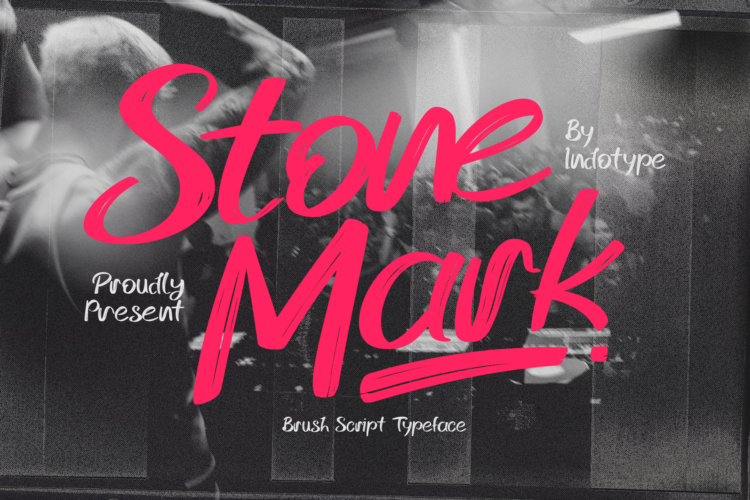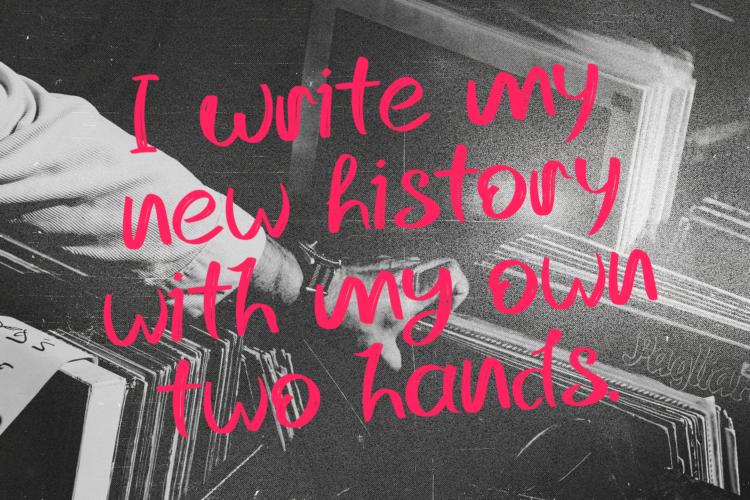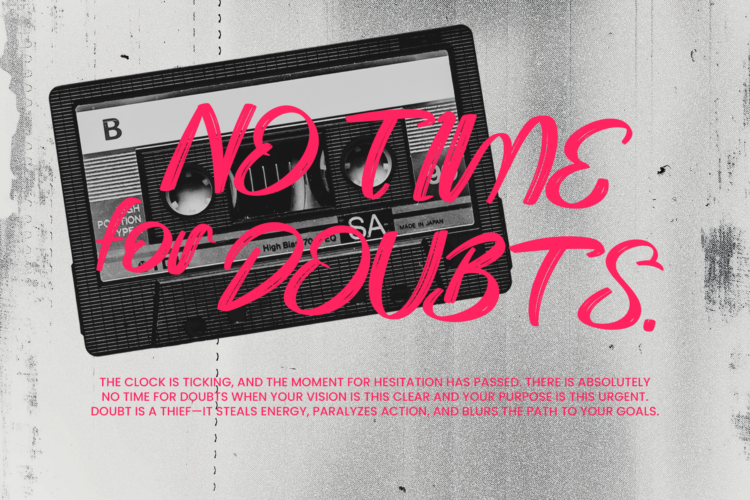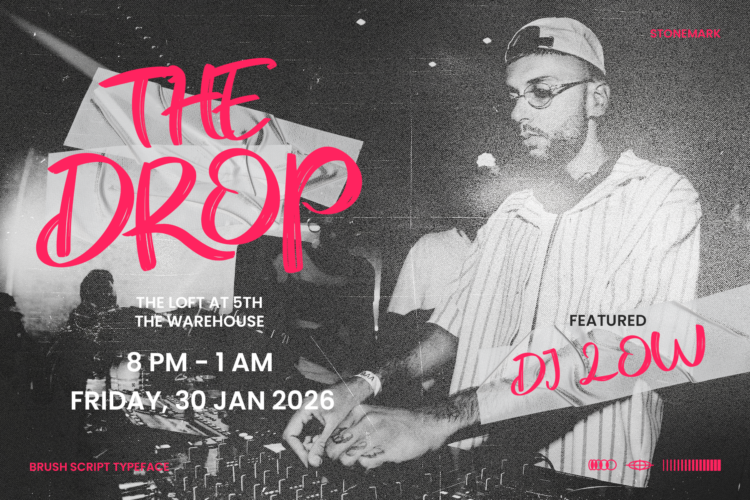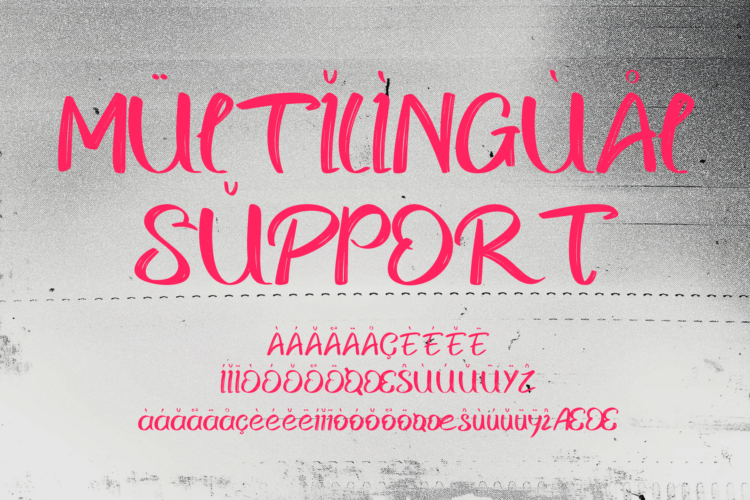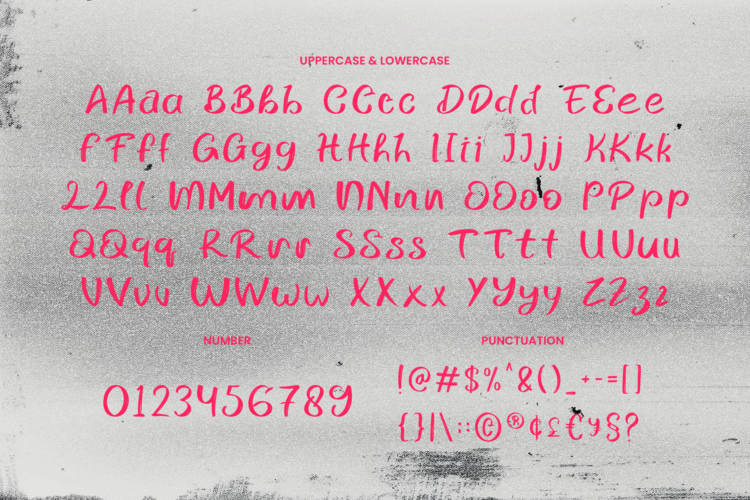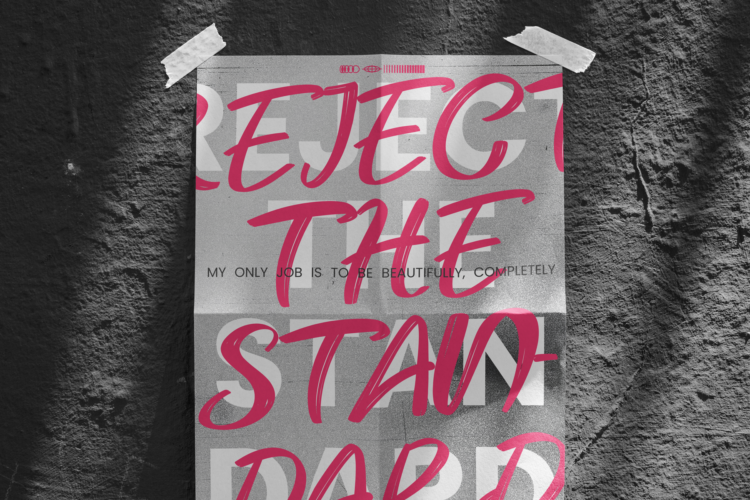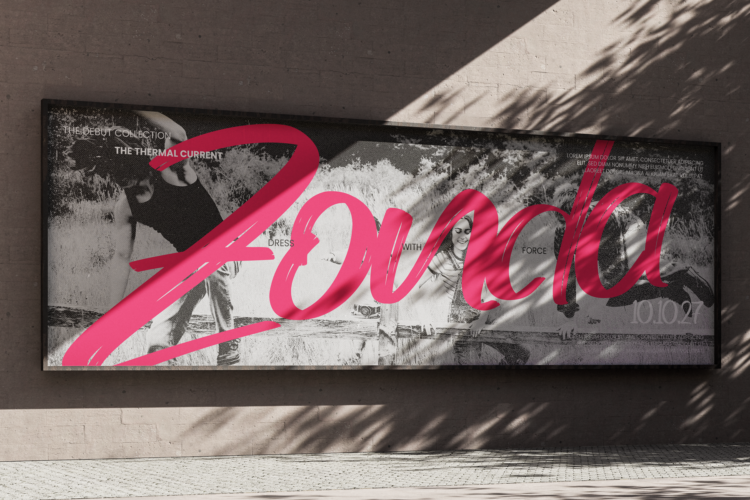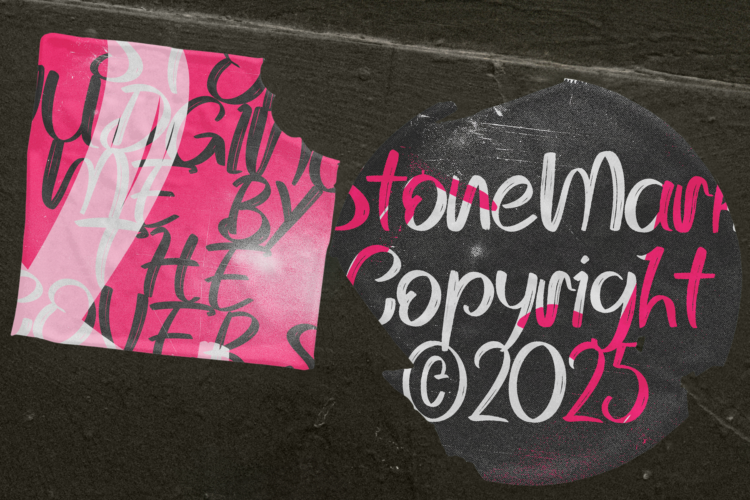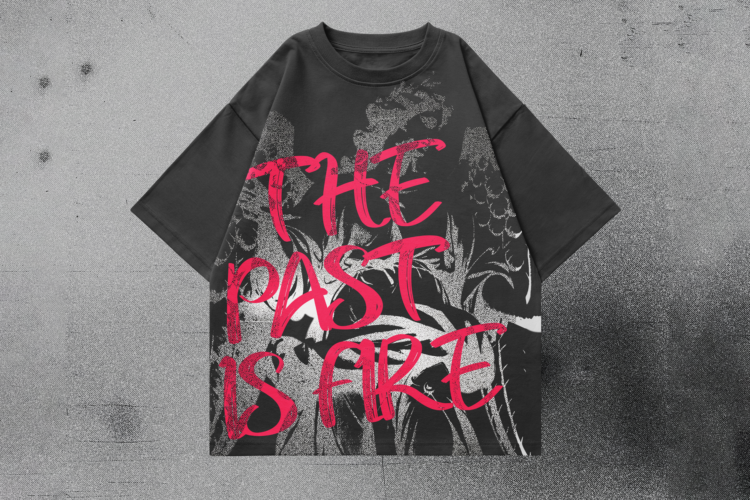
StoneMark is a raw, visceral brush script font that captures the unrefined energy of hand-painted lettering. With its textured strokes, organic variations, and gritty authenticity, this typeface feels both timeless and immediate—as if it was just brushed onto a weathered surface. It embodies a sense of rugged artistry, honest craftsmanship, and bold expression. This font is perfect for projects that demand a human touch and an unpolished, authentic vibe. Whether you’re designing for a craft brewery label, an indie band poster, a streetwear brand, or any project that values character over perfection, StoneMark delivers with undeniable personality. It’s not just a font; it’s a statement of hands-on creativity.
- Classification:Â Script, Brush, Handwritten, Display.
- Attributes:Â Raw, Textured, Expressive, Authentic, Gritty, Artistic, Bold.
- Thin, Regular, Medium, Semi Bold, Bold Weight Styles and Italic Style on Each Weight
- Including Alternate Glyphs